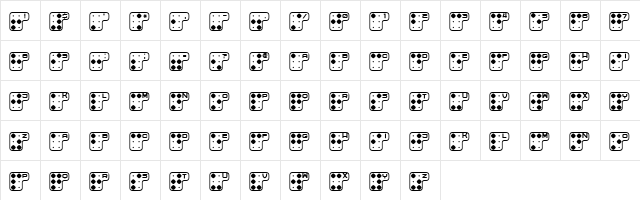
Brailler V2 Light Regular
Design Context for Brailler V2 Light Typeface
Brailler V2 Light takes a measured approach to typography — its balanced proportions and neutral character make it a reliable workhorse for both digital and print work. Its slender proportions lend an understated elegance to any composition.